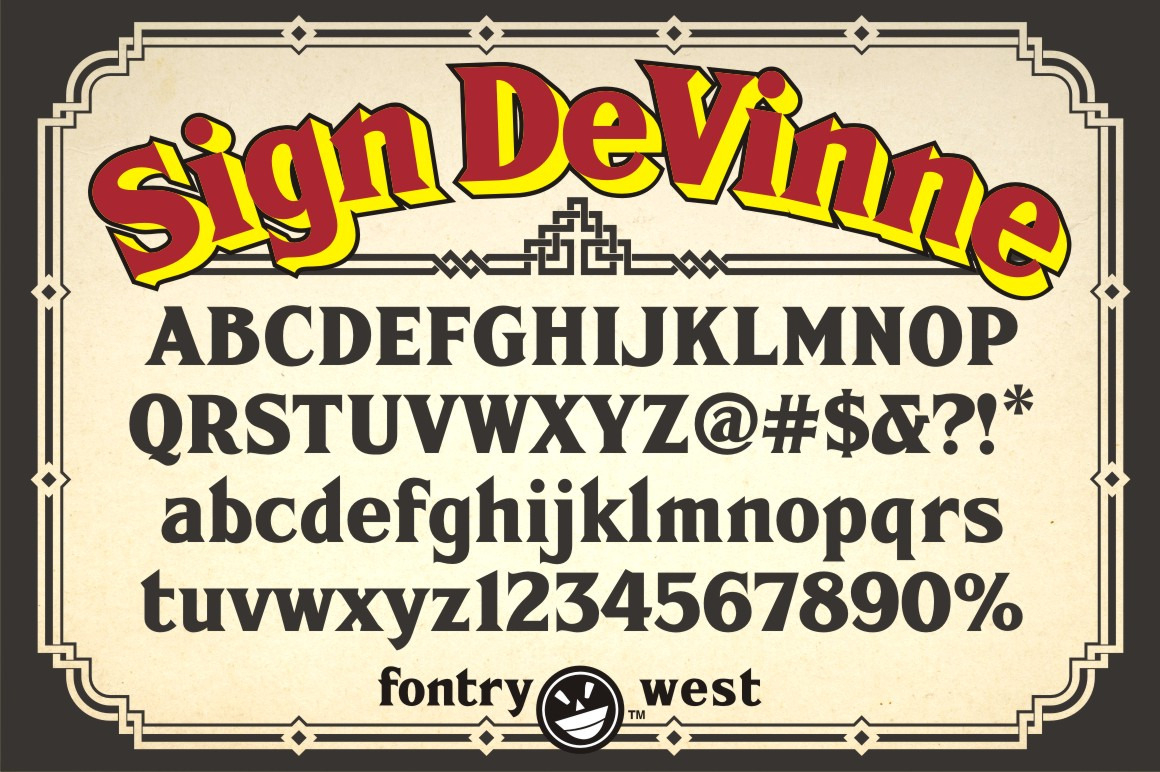
FHA Sign
FHA Sign is a display serif font family. This typeface has five styles and was published by Fontry West.
Around the end of the 19th century, the print typeface De Vinne was released and became popular. But, this is not that story….
Once, long ago,   there were no large format digital printers or vinyl cutters. Signs, posters, banners etc., were screen printed, in the case of mass production, or hand lettered. Sign painting was a difficult skill to master. Some young men apprenticed to more skilled sign painters to learn the craft. Others got some paint and brushes, maybe a how-to book and let the paint start flying. For the hand letterers there weren’t fonts in the technical sense. Each painter would build a repertoire of forms. These forms defined broad categories - standard or block styles, roman styles, block serifs, scripts and casuals and the single stroke forms. If you wanted a bold you used a wider brush. Italic forms were a slanted block or serif form with script or casual flourishes and terminals. There were stove pipe forms that acted as condensed letter styles. Most clients accepted these limitations. But, there will always be clients who are difficult. These folks wanted a specific print font for their signs. In the digital age, it is a simple matter to purchase the font and run it through the plotter or digital printer and be done. Back in the day, those fellows had to adapt something they were practiced at to new serifs and terminals. Any new “font” had to be practiced until the painter could reproduce the letters with some confidence. DeVinne was popular enough that
Frank Atkinson included it among his demonstrations fonts in his manual on sign painting. If you like bold serif fonts for display and headline type, FHA Sign DeVinne might be what you are looking for. Okay, so it is a revival of a Frank H. Atkinson classic, is that a bad thing? It is updated and modernized with an effort to clean up any pesky issues with character agreement. For die hard purists of hand lettered fonts, we included our original FHA Sign Painters DeVinne which more closely follows Atkinson’s lines - even those funky numbers. It seems a bit trite to say that Sign DeVinne is a face for a new millennial, but, there, we’ve said it. The font has clear bold strokes and a well defined character. So, what are those other fonts? Just for fun, we added three effects fonts. Shade adds an extrusion to the base font and, Shade25 adds either an extrude and outline to the base font or an outline to the base and the Shade. FHA Sign DeVinne Shaded is a combination of the base and Shade25. Is that cool or what?
• Stylistic Alternates: A, E, F, G, M, Q, a, g, y and ampersands, plus Polish acute alternates!
• Ligatures: In addition to fi, fl, ff, ffi and ffl we also have fj, ch, sh, sk, and ck.
• Layered Effects (as previously mentioned)